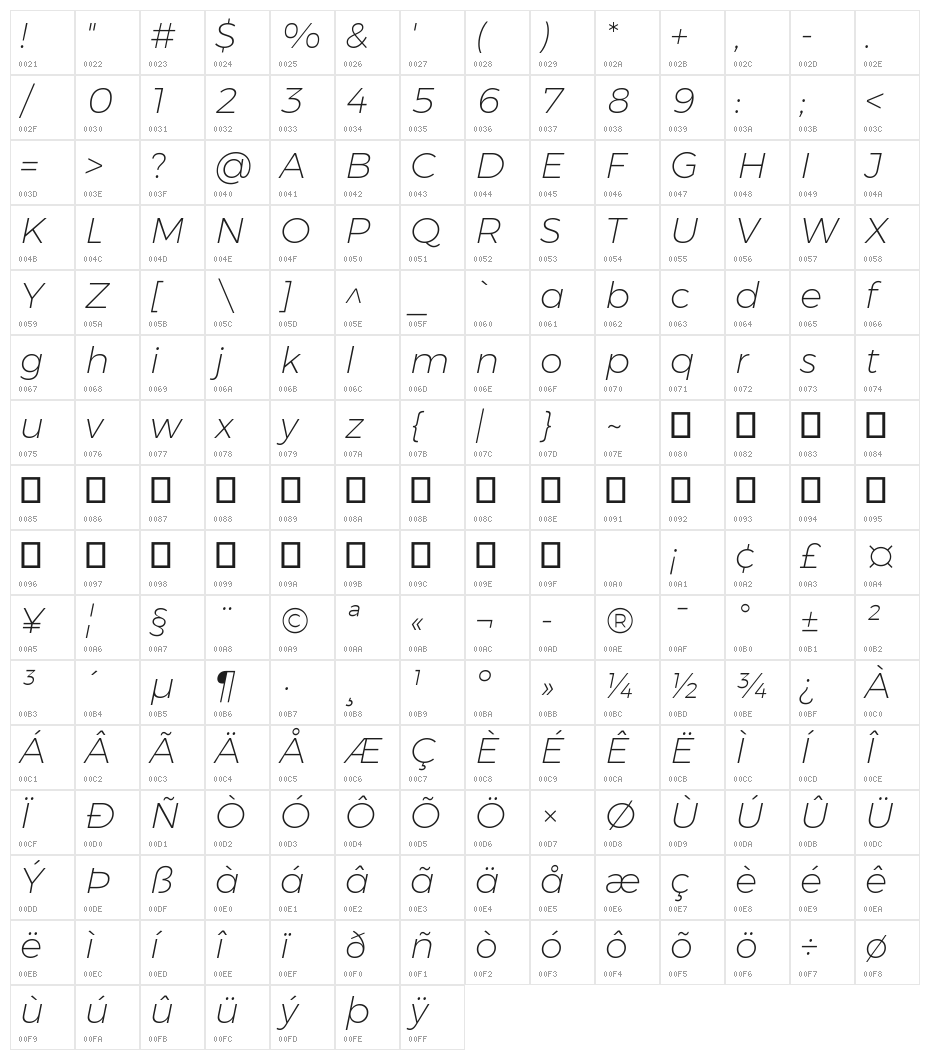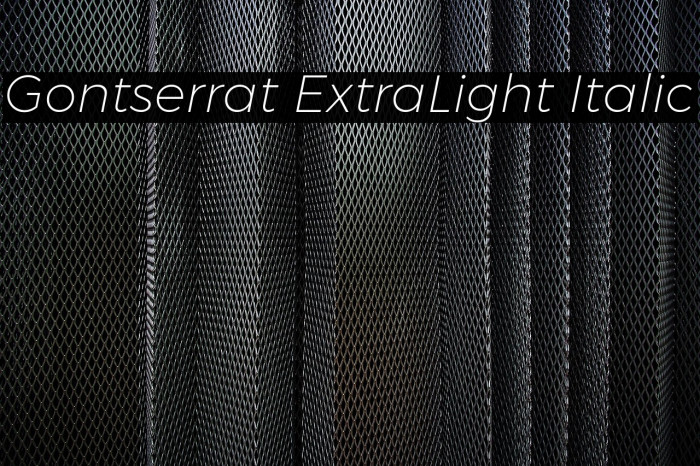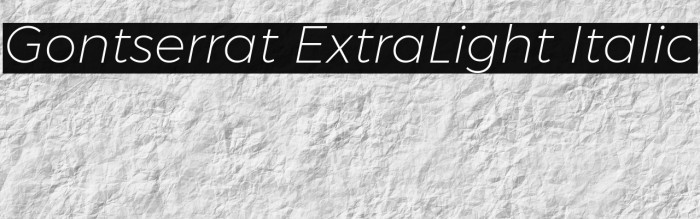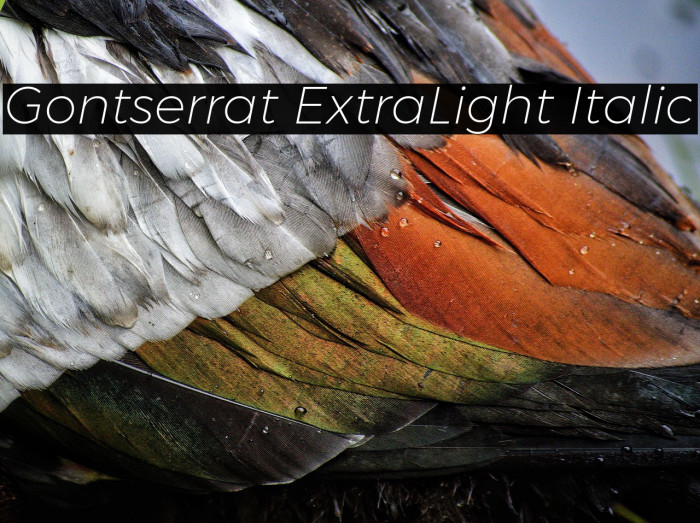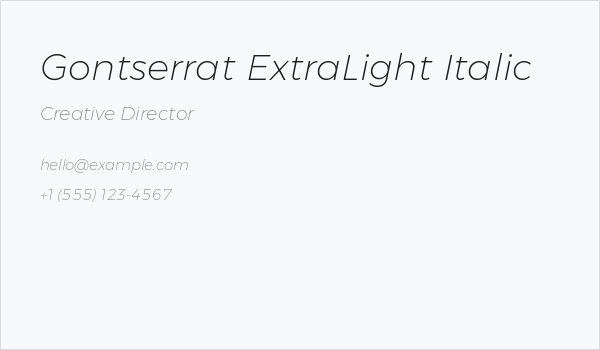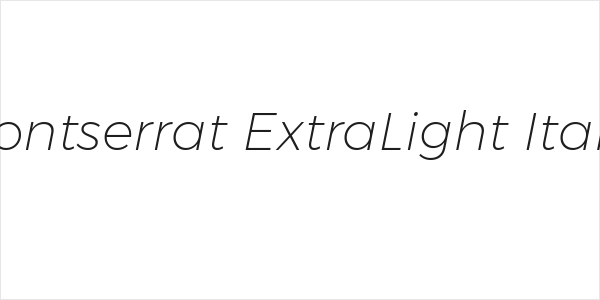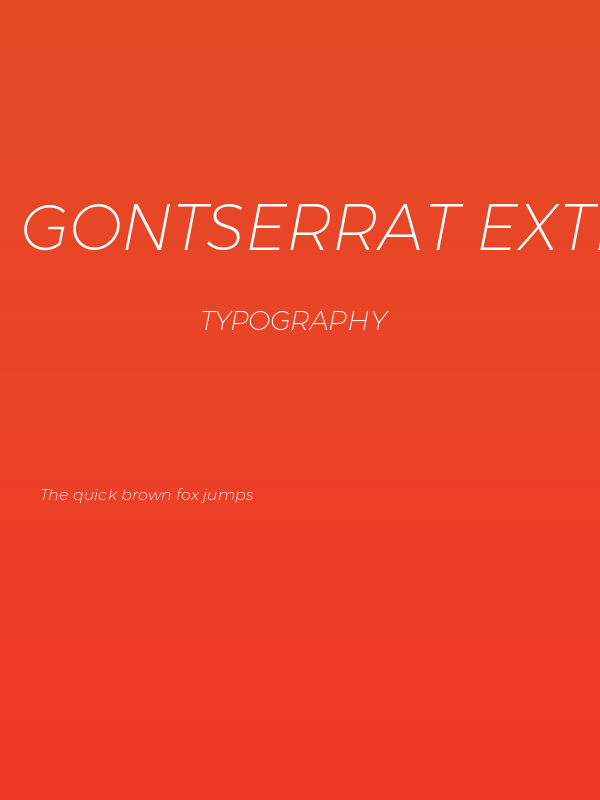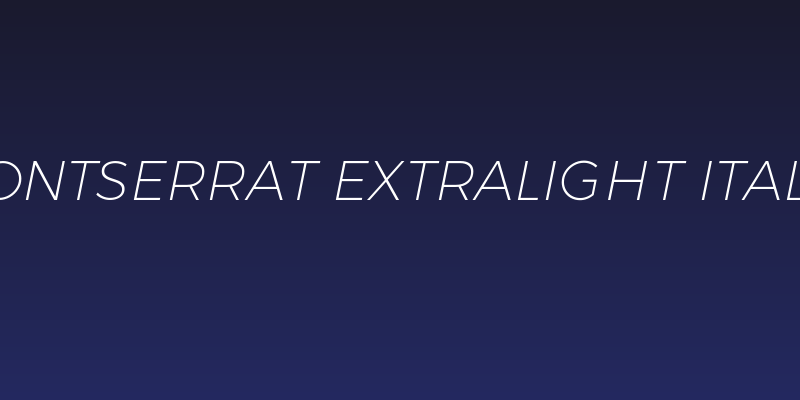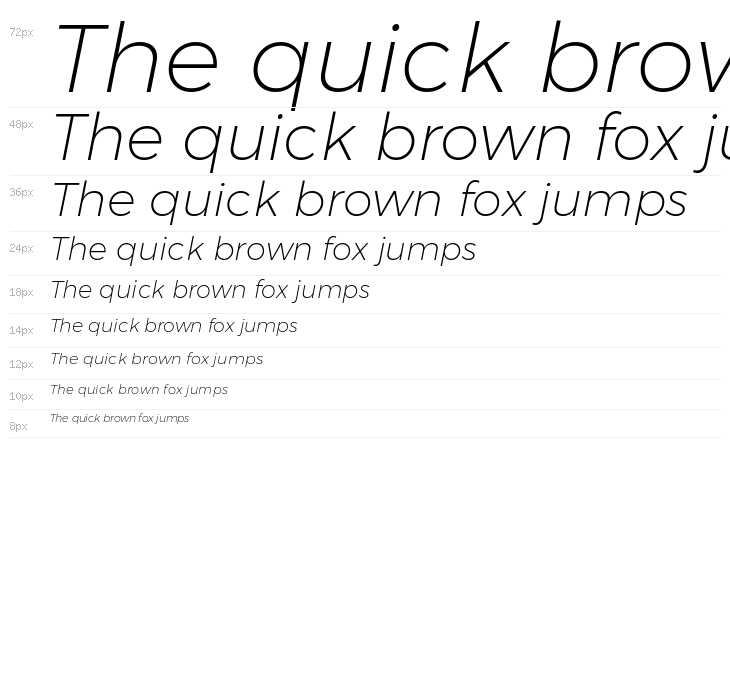
Gontserrat ExtraLight Italic Font
Gontserrat ExtraLight Italic Description
This font features a sleek and modern design with an extra-light weight and italic style. The characters are elegantly slanted, giving a sense of motion and fluidity. The font maintains a clean and minimalist aesthetic, with smooth curves and a uniform stroke width that enhances readability. The uppercase letters are slightly taller than the lowercase, providing a balanced and harmonious look. The numerals and special characters are designed to match the overall style, ensuring consistency across all text elements.